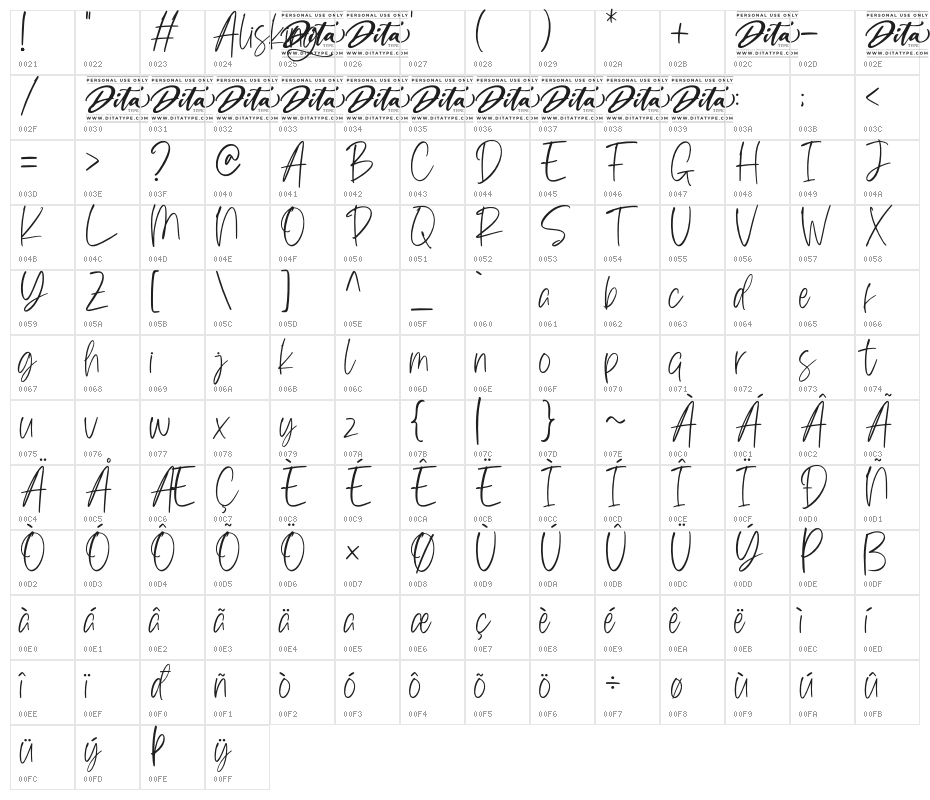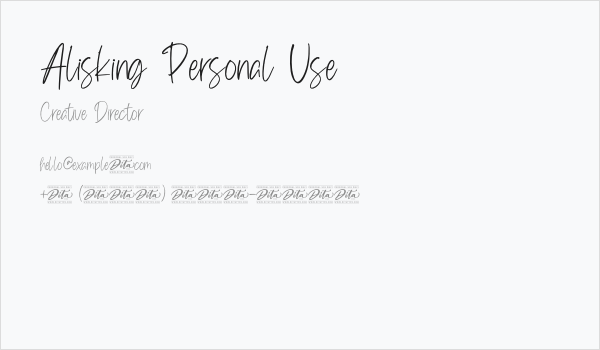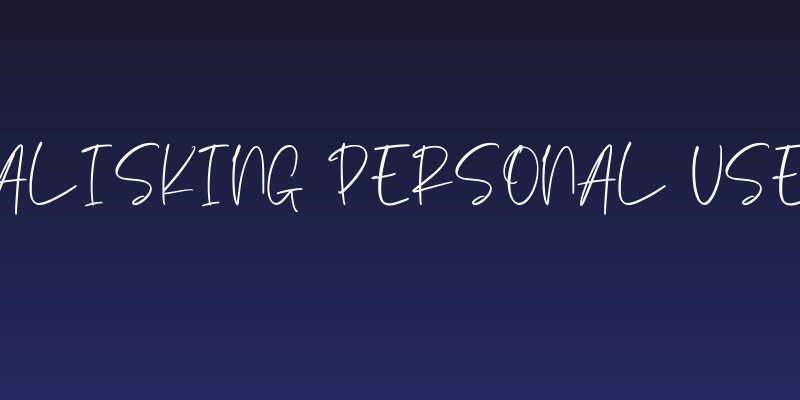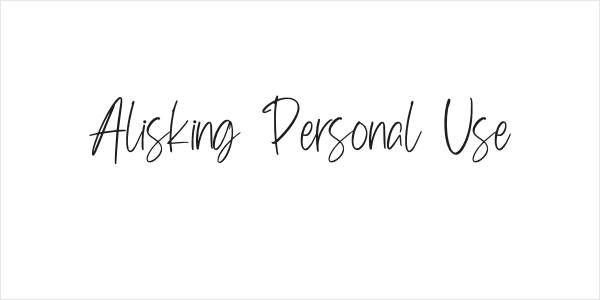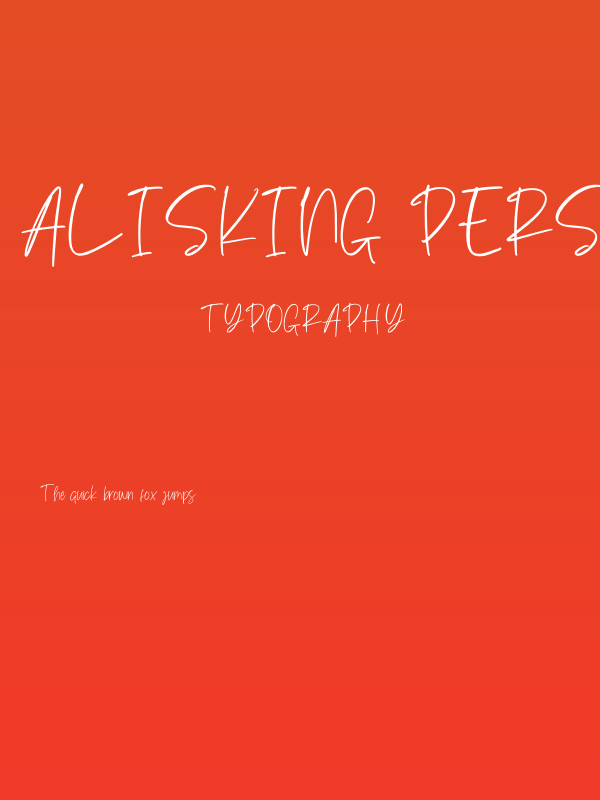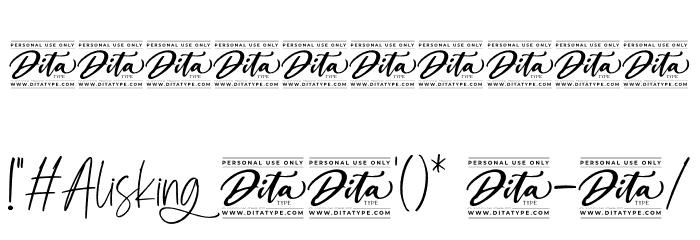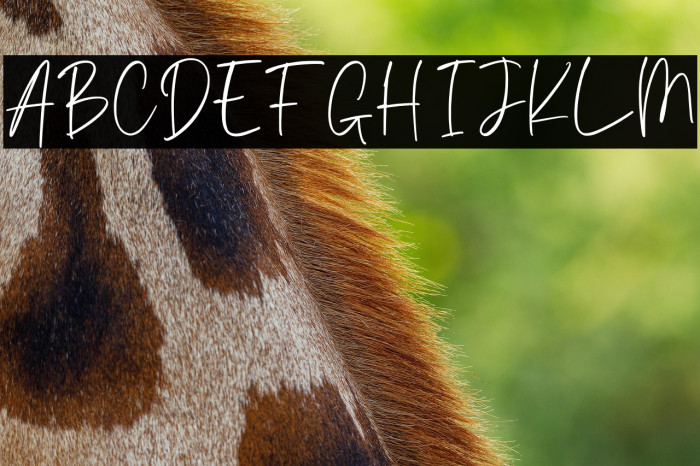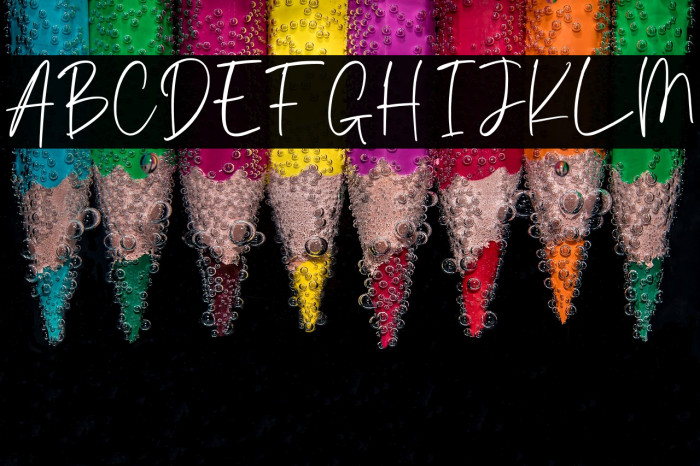
Alisking Personal Use Font
Alisking Personal Use Description
This font features a lively and expressive handwritten style, characterized by its fluid and dynamic strokes. The letters are slightly slanted, giving a sense of motion and energy. The uppercase letters are tall and slender, while the lowercase letters maintain a consistent height, creating a harmonious balance. The font includes a full set of uppercase and lowercase letters, numbers, and a selection of special characters. Its playful and informal appearance makes it suitable for creative projects that require a personal touch.